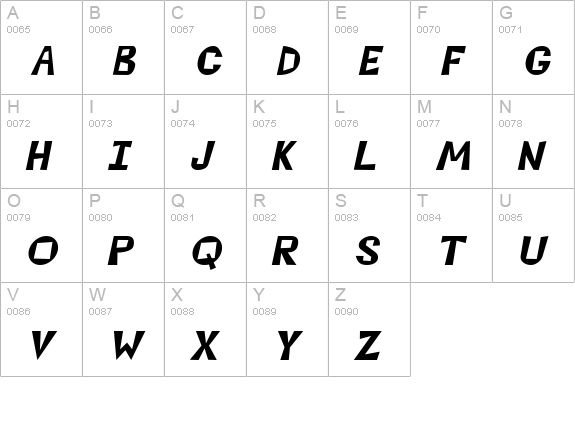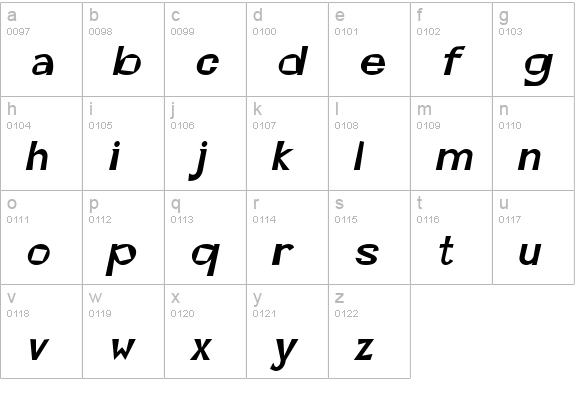
Magoo Italic Font Details
Magoo Italic is a distinctive, italic variant in the Magoo typeface family \xE2\x80\x94 well suited to design and typography projects.
Introducing Magoo Italic, a captivating and elegant font that effortlessly combines modernity with a touch of whimsy. With its slanted and gracefully flowing lines, this typeface exudes a sense of sophistication and creativity. Magoo Italic is designed to make a statement in any project, be it branding, advertising, or editorial design. Its unique letterforms add a sense of personality and flair, making it the perfect choice for those seeking to stand out from the crowd. But what truly sets Magoo Italic apart is that it is free. Yes, you read that right – this stunning font is freely available to download at FontsMarket.com. With just a few clicks, you can add this incredible typeface to your collection, without spending a dime. Whether you're a professional designer or a casual enthusiast, Magoo Italic will surely become a go-to font for your creative endeavors. Its versatility allows it to adapt seamlessly to various design styles, from sleek and minimalistic to bold and vibrant. So don't miss out on the opportunity to enhance your projects with the allure of Magoo Italic. Download it for free at FontsMarket.com and let this remarkable font unleash your creativity like never before.